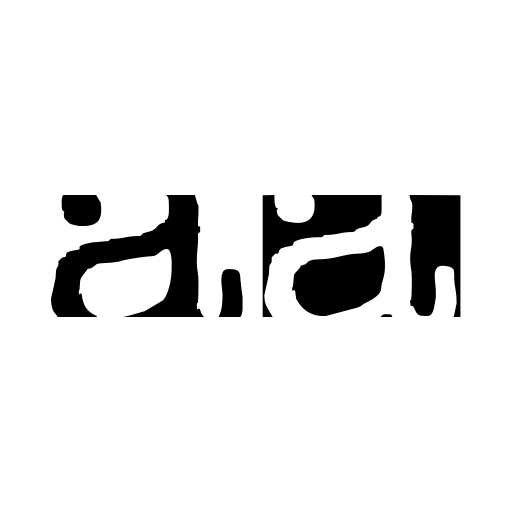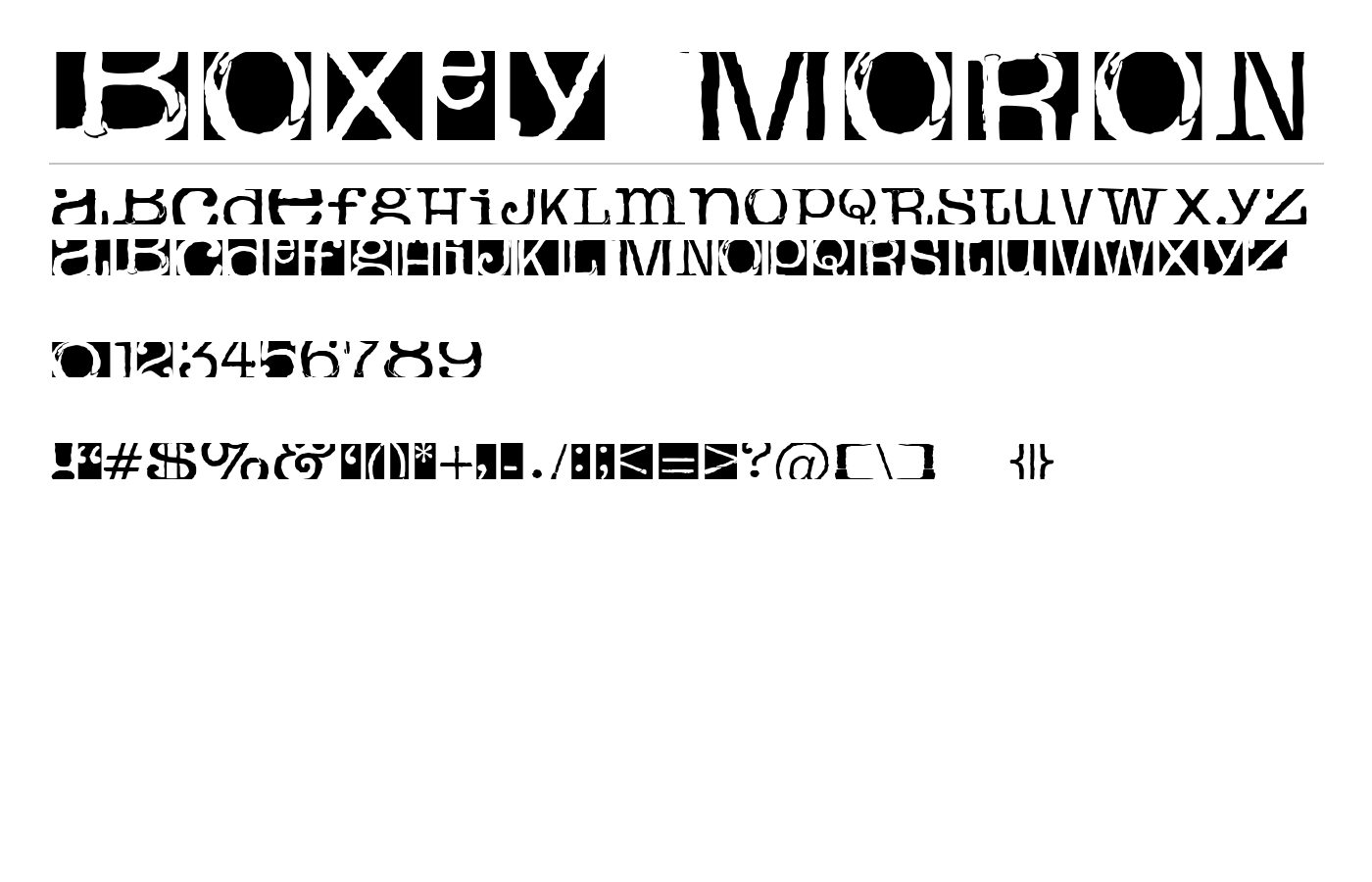
Boxey Moron is a bold, distressed serif display font that combines vintage charm with a grungy, textured look. Its irregular, broken letterforms and strong contrast give it a rebellious, edgy personality, making it perfect for eye-catching headlines, posters, and creative branding where a raw, unconventional style is desired. This font works well in designs that seek to stand out with a bold, imperfect flair.
boxey moron Font
About boxey moron Font